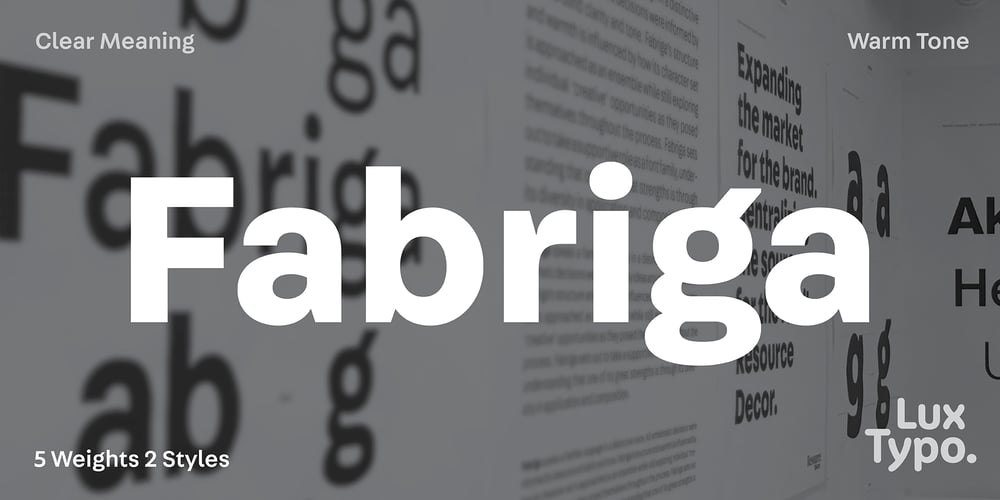
Fabriga Font Family was designed by Greg Lindy and published by LuxTypo. Fabriga contains 10 styles and family package options. Fabriga speaks a familiar language in a distinctive voice. Ideas around clarity and tone informed all emblematic decisions. Fabriga’s structure and warmth are influenced by how its character set is approached as an ensemble while exploring individual ‘creative’ opportunities as they pose themselves throughout the process. Fabriga sets out to take a supportive role as a font family, understanding that one of its great strengths is its diversity in application and composition.